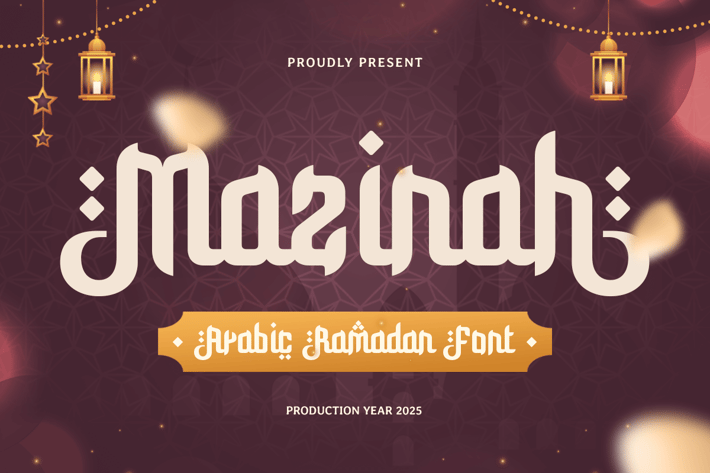
Mazinah - Arabic Ramadan Font
A Harmonious Fusion of Tradition and Modernity
Mazinah is a refined Arabic condensed font designed to bring a touch of elegance and spirituality to Ramadan and Islamic-themed projects. Inspired by traditional calligraphy yet infused with modern aesthetics, this font embodies the essence of the holy month. Its condensed form makes it a perfect fit for impactful headlines, branding, and decorative elements, ensuring your designs exude both cultural depth and contemporary appeal.
Designed for Ramadan Celebrations and Beyond
With its clean yet expressive letterforms, Mazinah is ideal for various design applications, including event posters, product packaging, social media visuals, and invitations for Eid and Ramadan gatherings. The balanced proportion of each character ensures high readability while maintaining an artistic Arabic feel, making it suitable for both print and digital use. Whether you're creating promotional materials for an Islamic event or designing elegant spiritual artwork, Mazinah will elevate your composition.
Versatile and Culturally Rich Typeface
Mazinah is not just another Arabic font—it is a tribute to the beauty of Islamic art and design. The condensed structure allows you to maximize space while keeping an elegant aesthetic. Perfect for branding, advertising, and editorial projects, this font enables you to craft visually striking compositions that honor both tradition and modernity.
Mazinah - Arabic Condensed Ramadan Font Features: